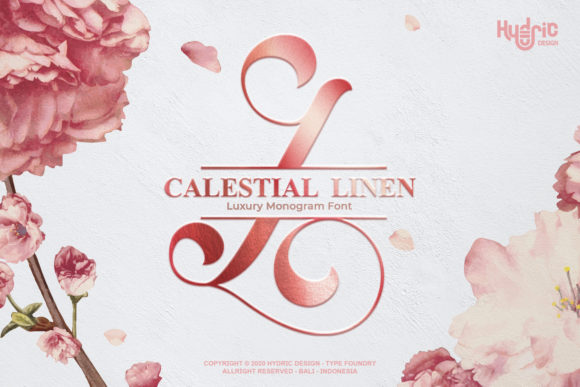
Dive into the realm of elegance and sophistication with Monogram Calestial Linen Font, a decorative masterpiece crafted by Hydric Design. This enchanting script font exudes a timeless allure, adding a touch of magic to your creative projects.
Journey through a world of graceful curves and delicate details as you explore the depths of Monogram Calestial Linen. Its intricate lines and flowing strokes evoke a sense of romance and whimsy, leaving an unforgettable impression on your designs.
Picture the beauty of a handwritten note adorned with Monogram Calestial Linen's flowing characters. Its elegant flourishes and sweeping curves dance across the page, conveying heartfelt sentiments with a touch of artistry.
Envision the enchantment of wedding invitations adorned with Monogram Calestial Linen's timeless charm. Its delicate lines intertwine, creating a symphony of elegance that captures the joy and romance of the occasion.
Step into the world of Monogram Calestial Linen and witness the transformation of ordinary designs into captivating works of art. Its versatility knows no bounds, extending from greeting cards that warm hearts to headlines that command attention.
With Monogram Calestial Linen as your creative companion, your designs will radiate a sense of luxury and refinement. Its timeless aesthetics transcend trends, ensuring your projects remain captivating for years to come.